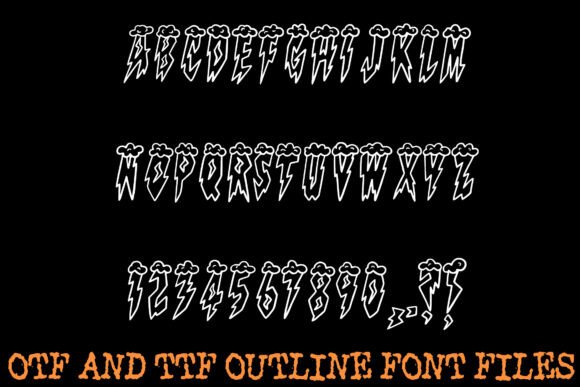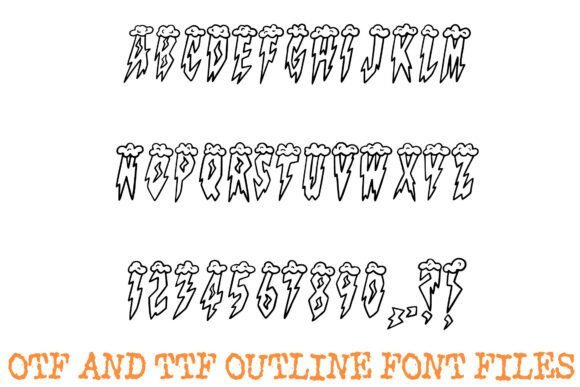
Introduction to Lightning Clouds Font Font
Fonts play a crucial role in design, and the Lightning Clouds Font font is a typeface that brings both character and versatility to any project. Whether you’re working on a branding project, a website, or a print design, the Lightning Clouds Font font offers a unique style that can elevate your work.
Lightning Clouds is an electrifying display font inspired by thunderbolts and stormy skies.
Bring the storm to your designs with Lightning Clouds Font, a bold and electrifying decorative typeface that combines thunderbolt-shaped letters with playful cartoon clouds This dynamic and high-energy font crackles with excitement — perfect for comic titles, kids’ designs, gaming graphics, posters, and superhero themes.
Key Features of Lightning Clouds Font Font
Why Choose Lightning Clouds Font Font?
The Lightning Clouds Font font is more than just a typeface – it’s a design tool that helps you communicate your message with style and clarity. Its unique character set and versatile design make it suitable for a wide range of applications, from elegant invitations to bold headlines.
With its carefully crafted letterforms and balanced proportions, the Lightning Clouds Font font ensures readability and visual appeal across all mediums.
What makes Lightning Clouds Font font special?
The Lightning Clouds Font font stands out with its unique design, exceptional readability, and versatility across various design applications.